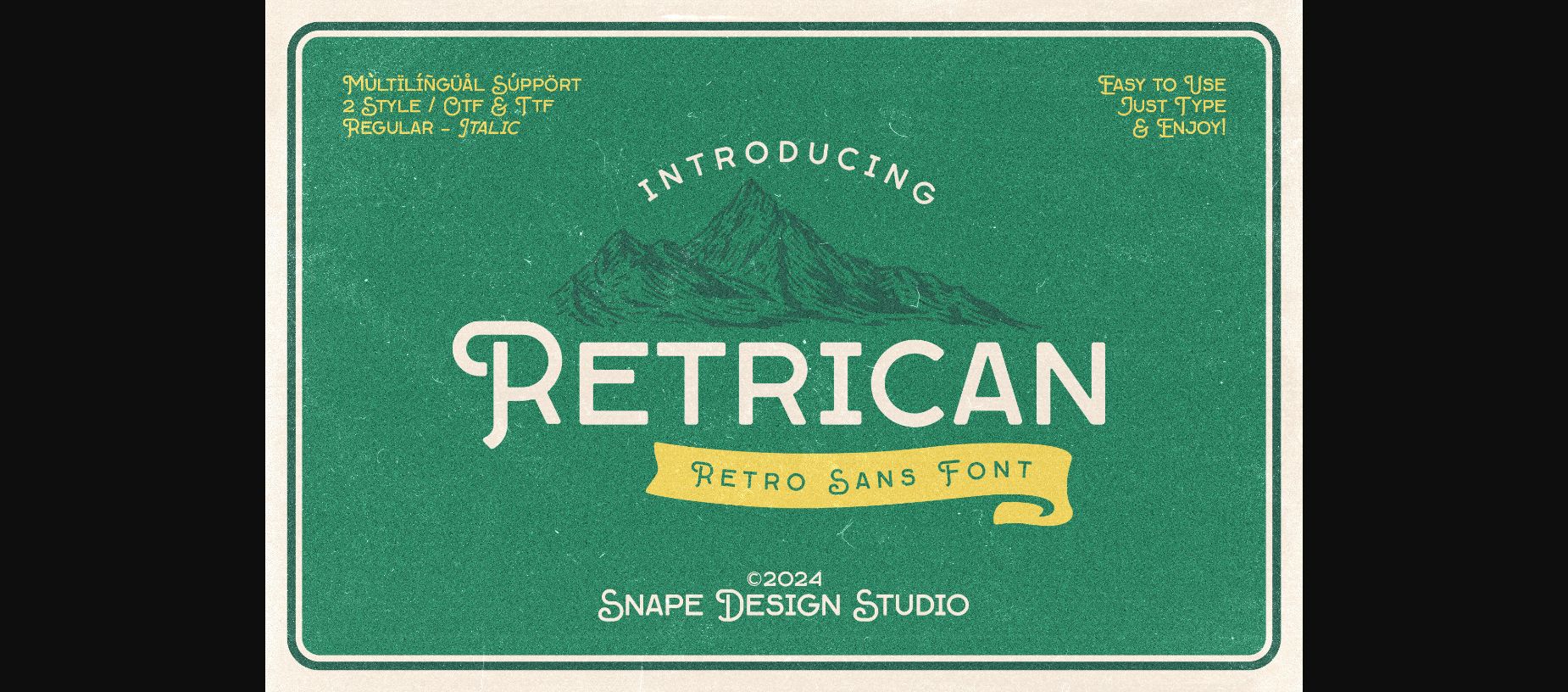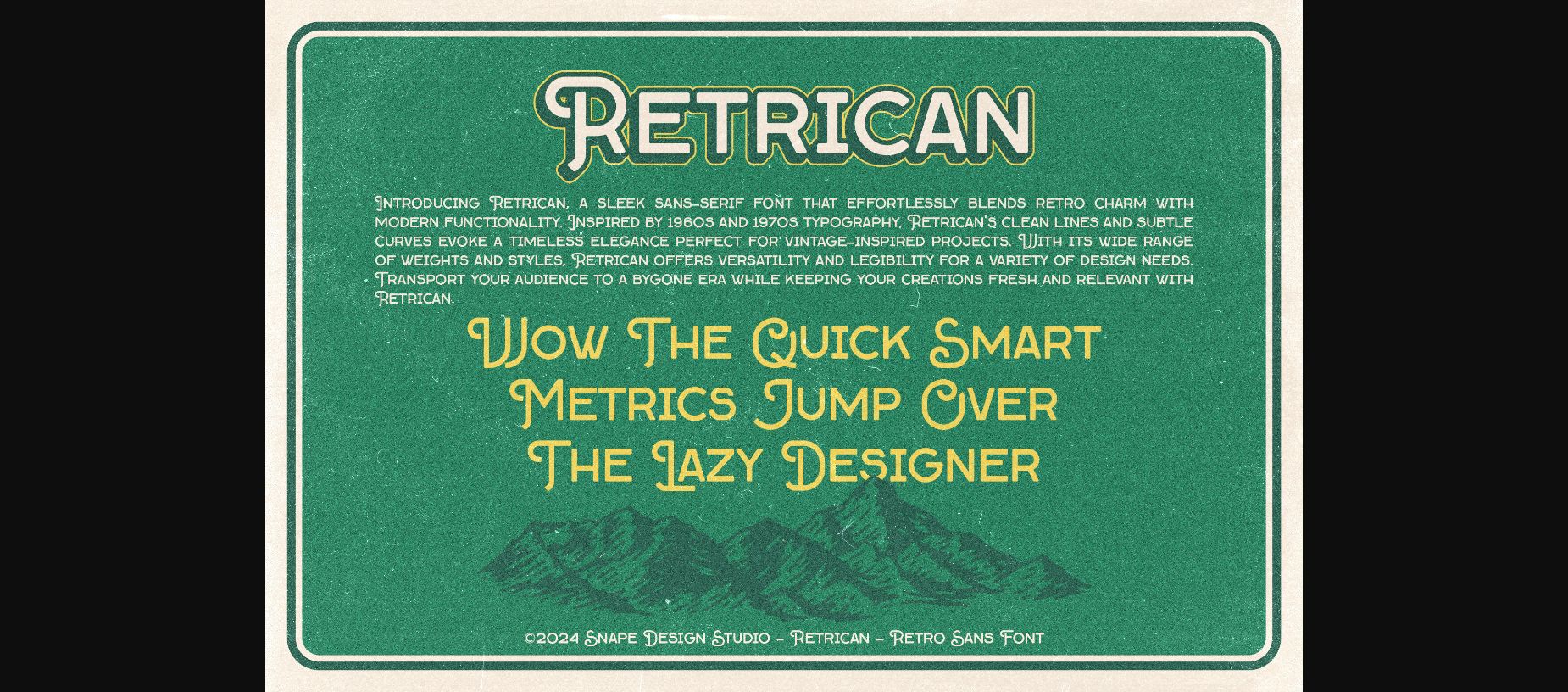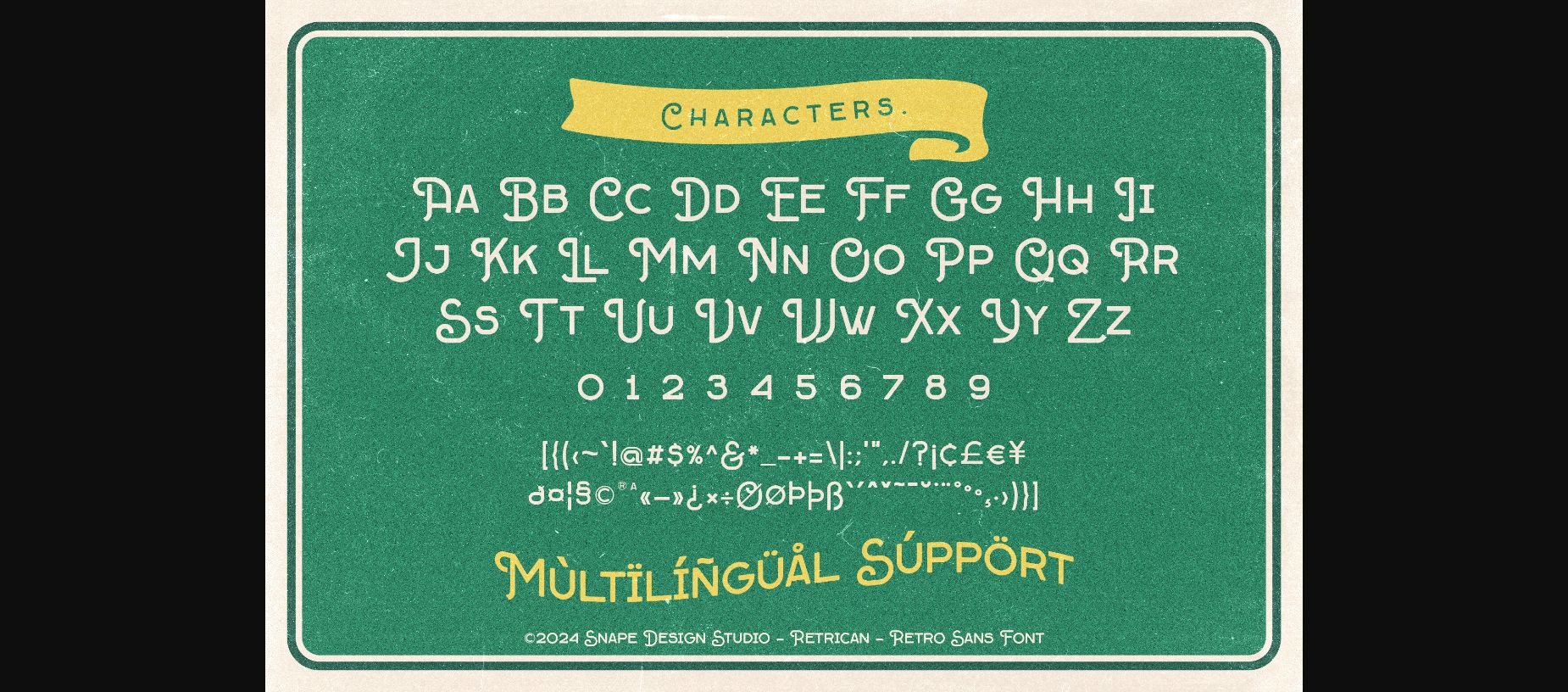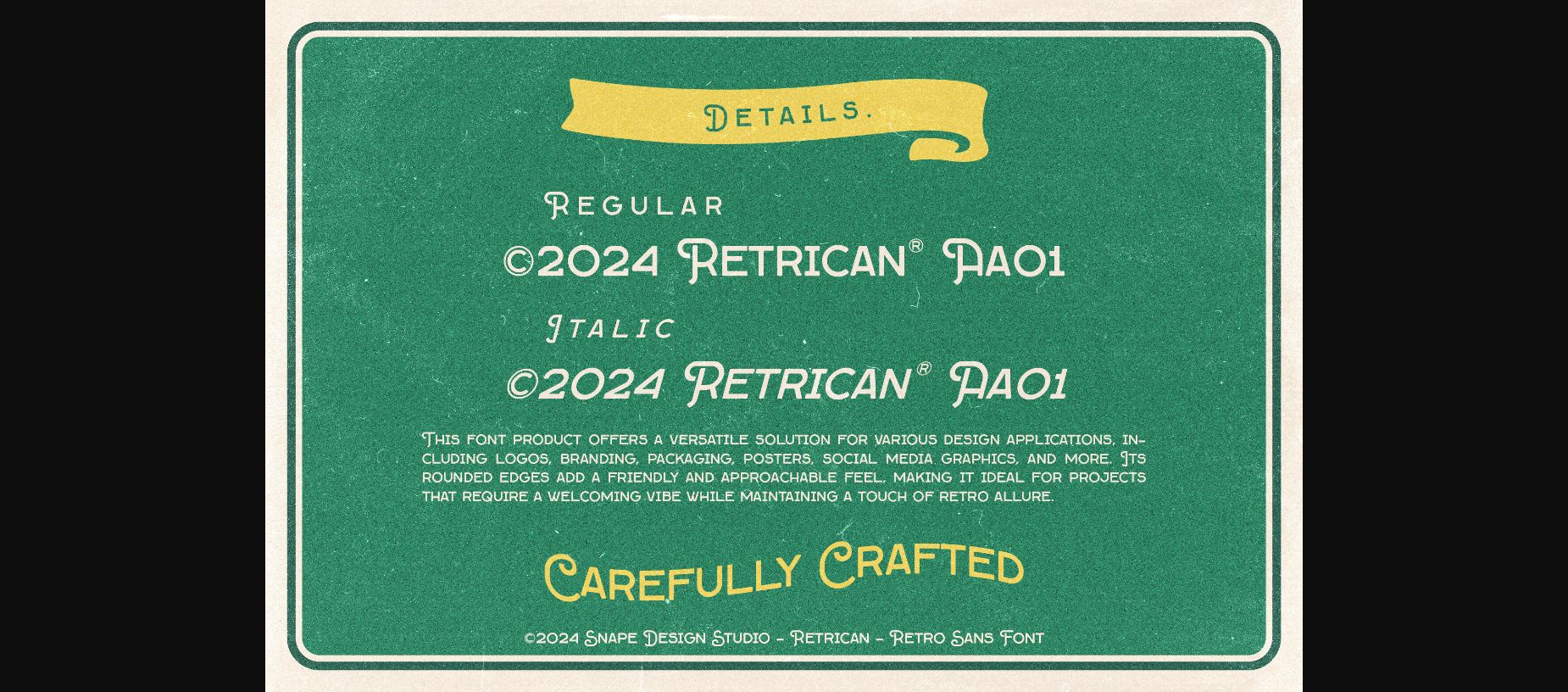
About Retrican Font
Retrican, a retro sans serif font, merges vintage charm with contemporary appeal. With clean lines and subtle nods to mid-century design, it infuses projects with a sense of nostalgia and modern sophistication. Ideal for those seeking to evoke retro vibes with a fresh twist.